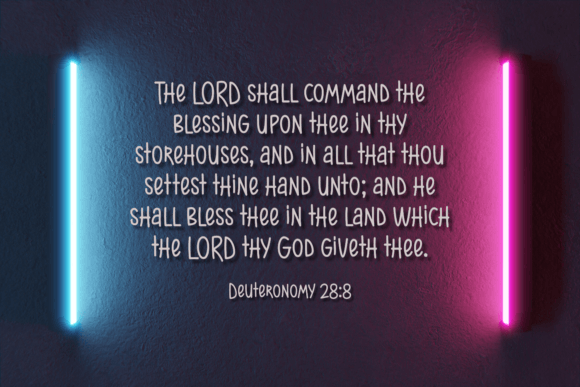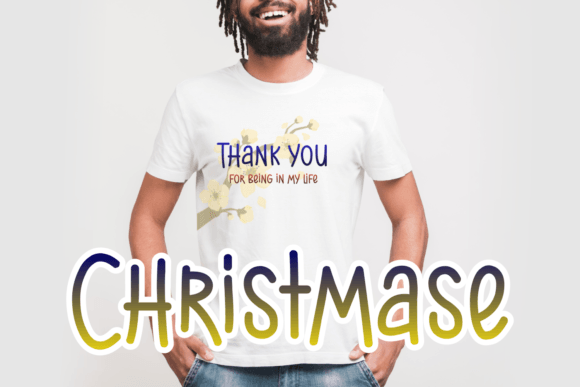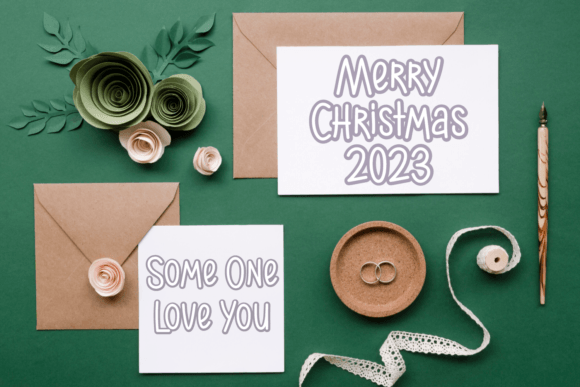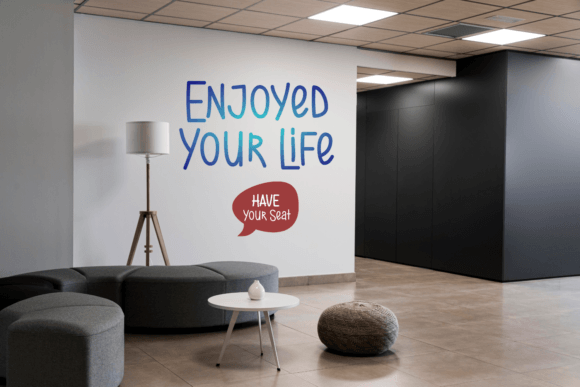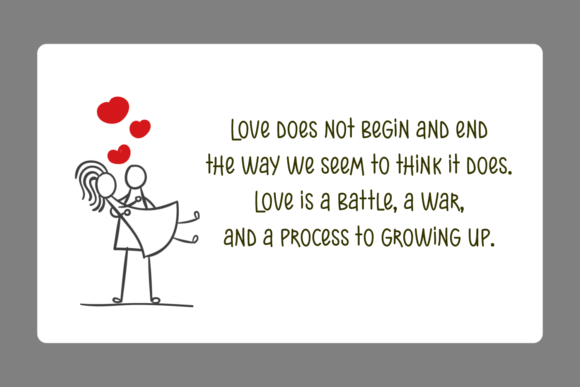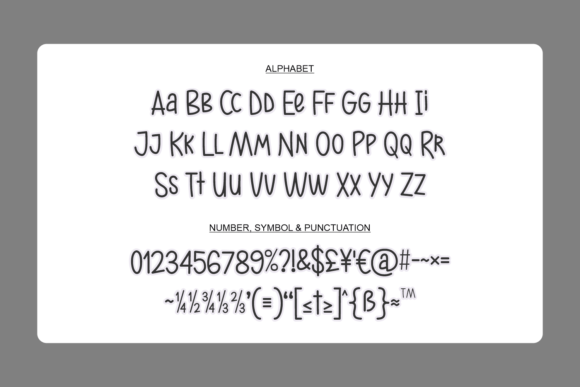
Introduction to Christmase Font
Christmase feels playfully handmade and delivers an incredibly playful handwritten font.
Use this display font to add that special playful touch to any design idea you can think of Masterfully designed to become a true favorite, this font has the potential to bring each of your creative ideas to the highest level.
Christmase Font offers exceptional quality and versatility, making it a valuable addition to your design toolkit. Whether you’re creating for personal projects or commercial use, Christmase Font delivers professional results.